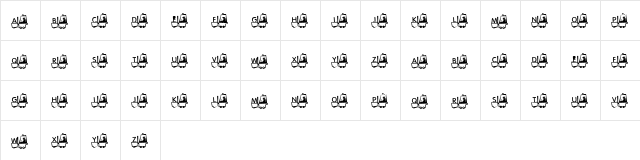
KR Construction Regular
Design Context for KR Construction Typeface
KR Construction is a composed and adaptable typeface that performs quietly and consistently across a wide range of design contexts.